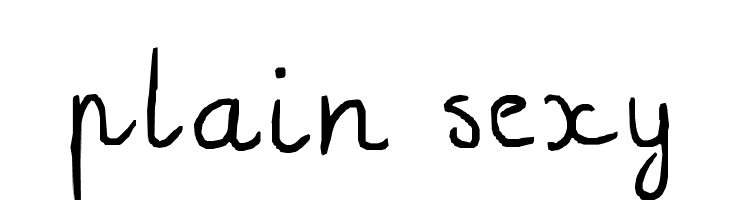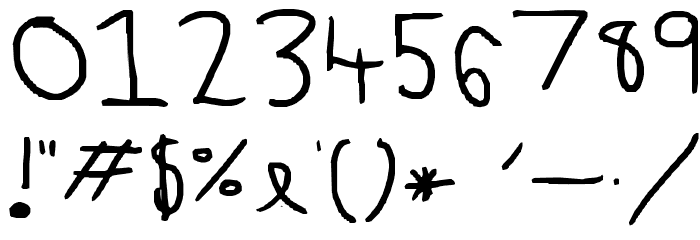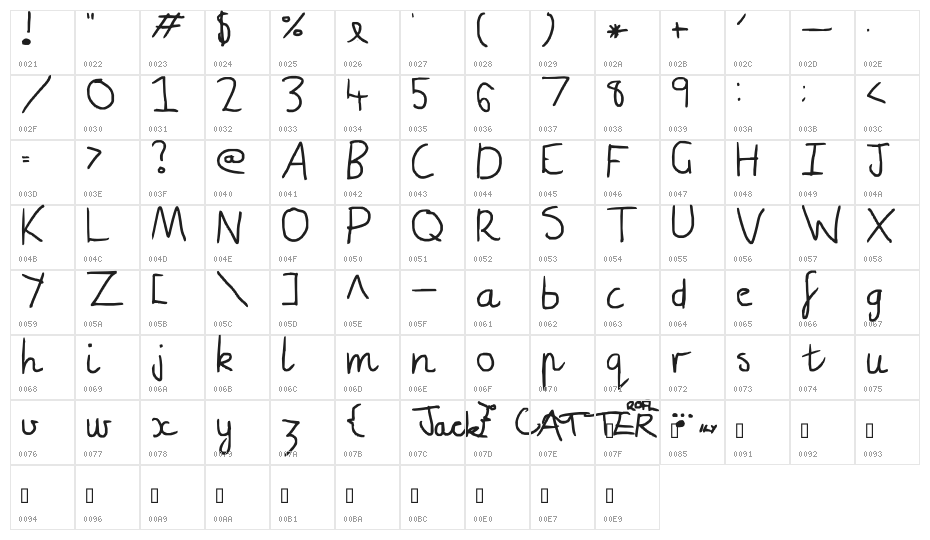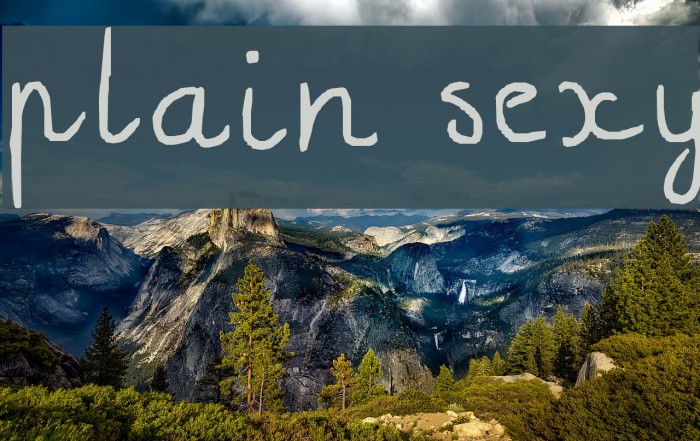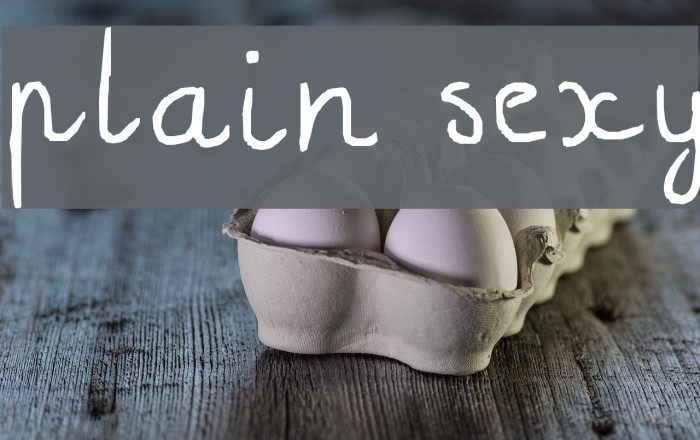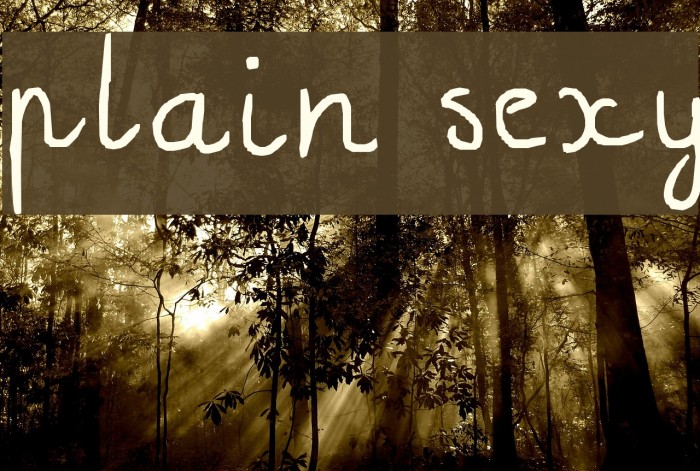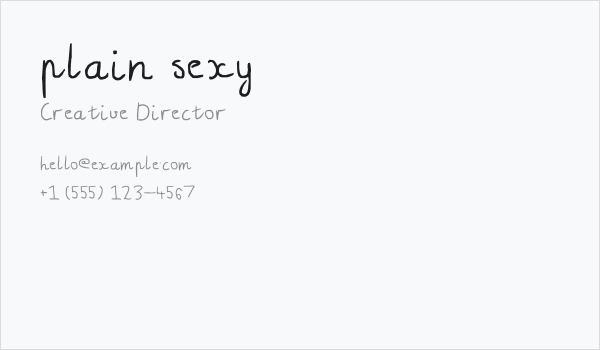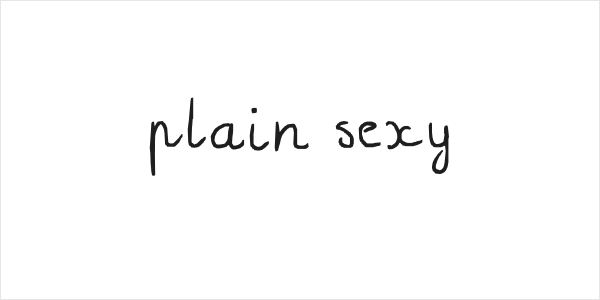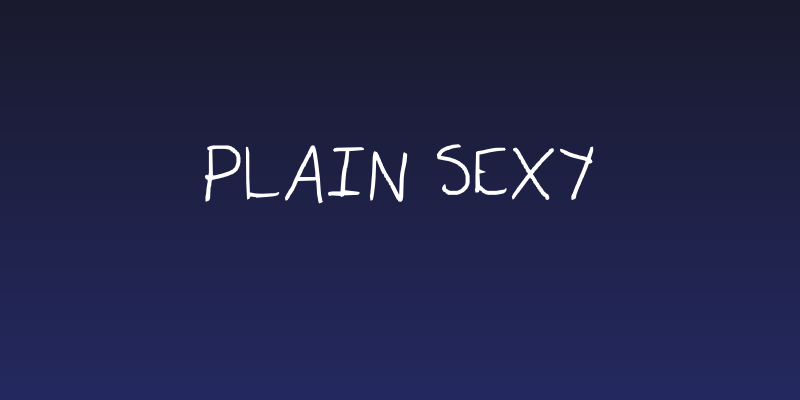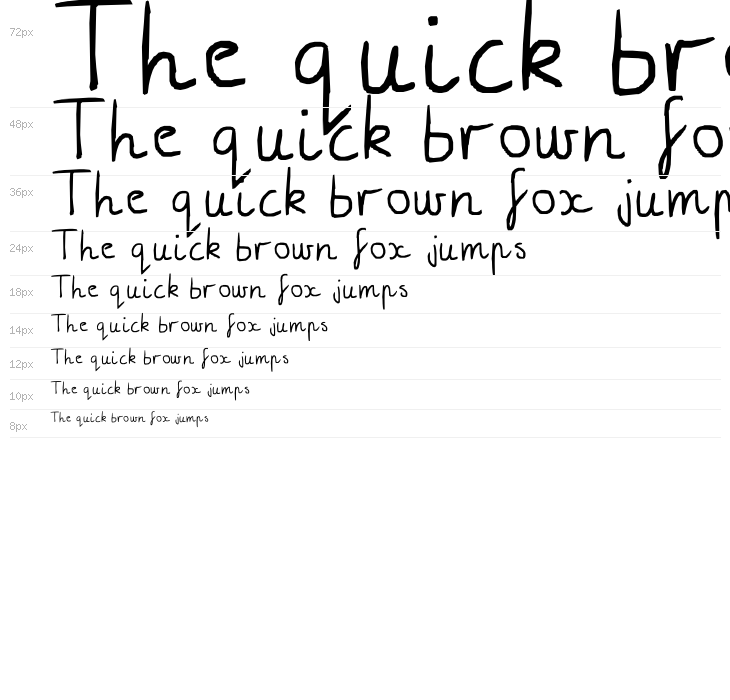
plain sexy Font
plain sexy Description
This font features a playful and casual handwritten style, characterized by its irregular strokes and informal appearance. The uppercase letters are slightly taller and more angular, while the lowercase letters have a more fluid and connected look. The numbers and special characters maintain the same casual aesthetic, adding a touch of whimsy. The overall design is approachable and friendly, making it suitable for projects that require a personal touch. The strokes vary in thickness, providing a dynamic and lively feel.
| Use Case | Headlines, Informal text, Personal projects |
| Proposed Projects | Ideal for greeting cards, children's books, personal blogs, and informal branding projects. |